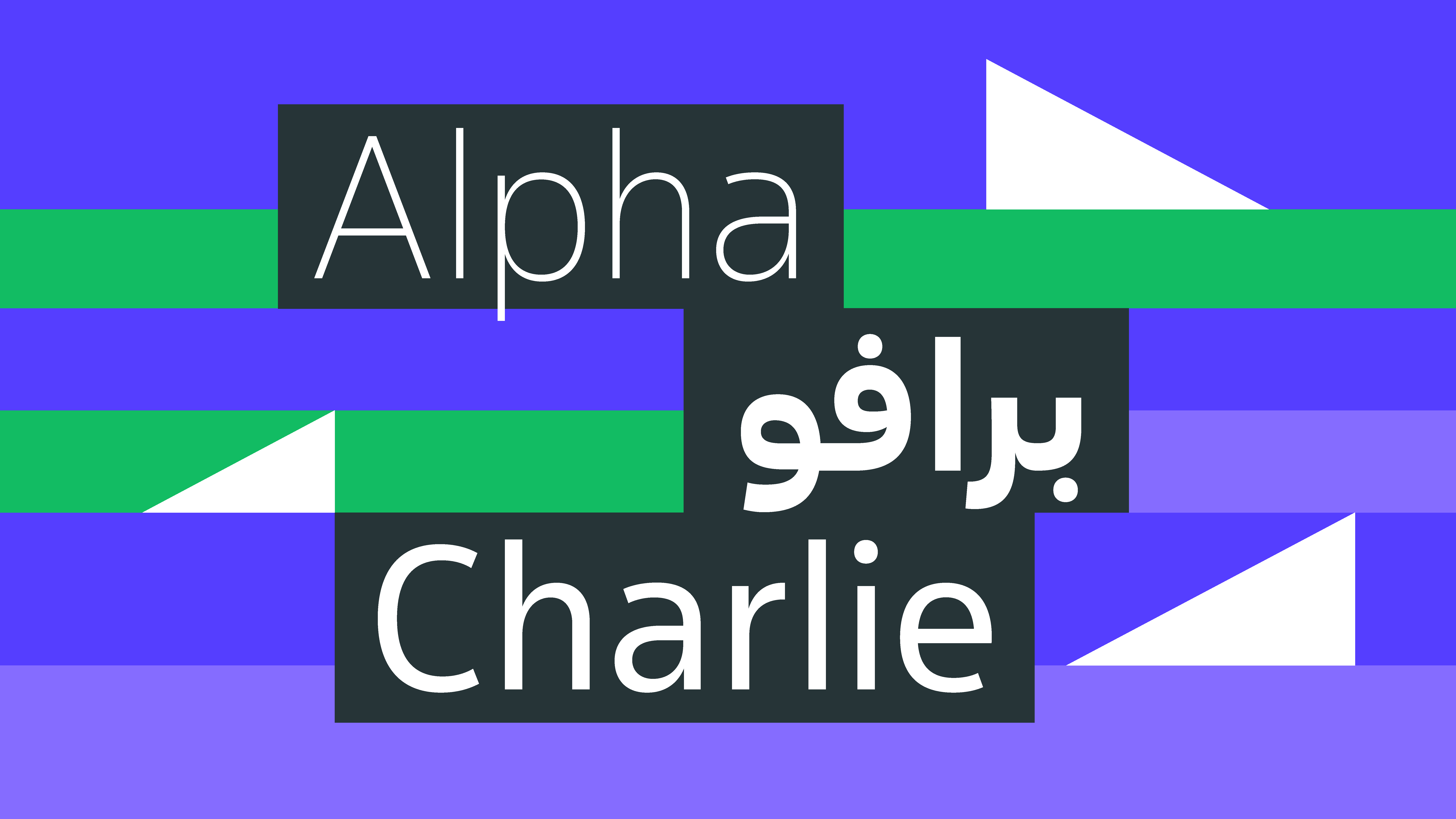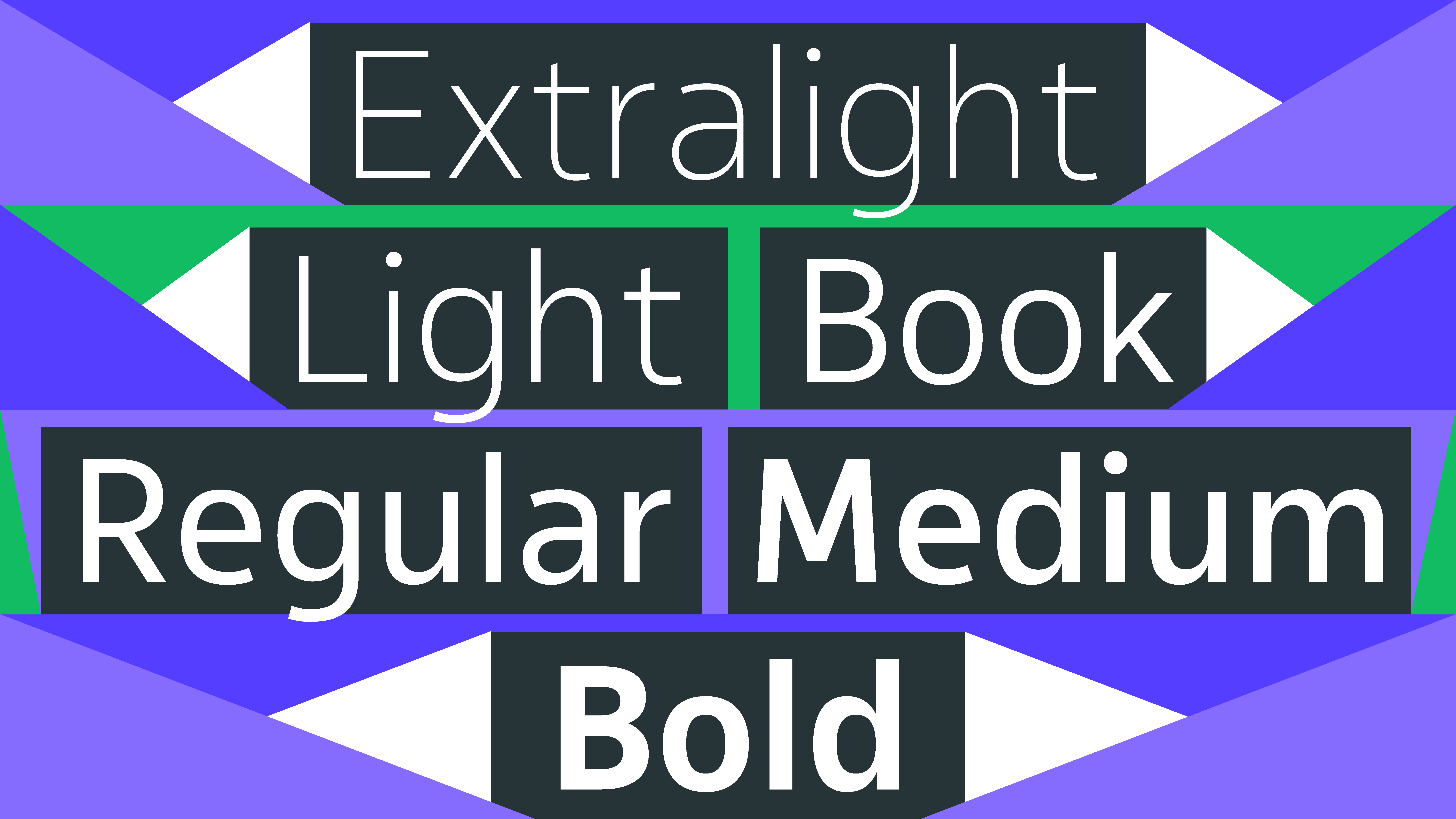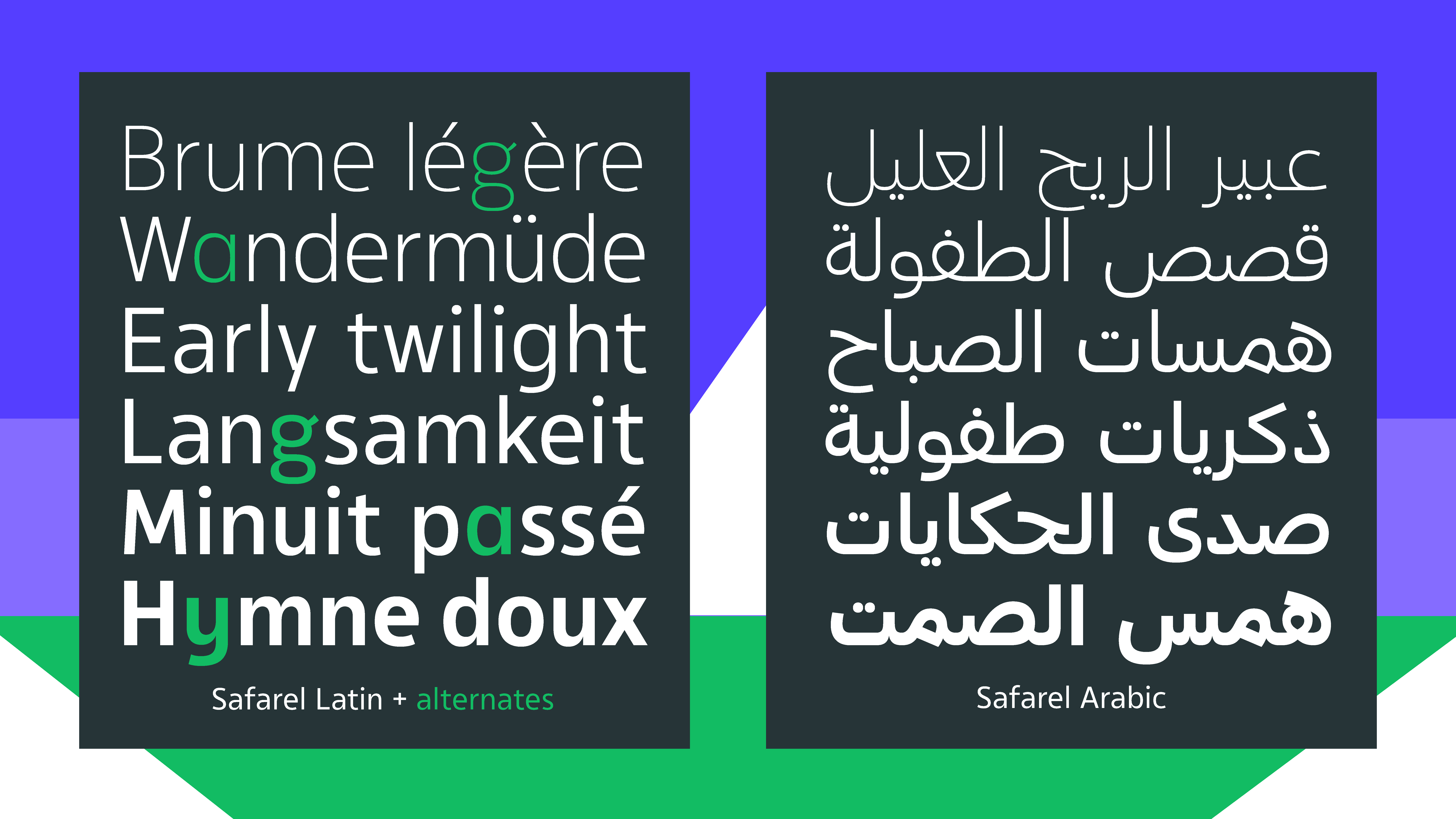
Safarel
صفاريل
في بابلفونت، لا نرسم الحروف... بل نُحرّرها من أقفاص اللغة! هل رأيتَ حرفًا يتمطّى؟ نحن رأيناه. وحرفًا آخر يرقص على السطر، ثم يختفي فجأة في هامش المعنى. بعض الحروف عندنا تنام في الكلمة، وبعضها الآخر لا يعرف النوم... كل ما يريده هو النطق، النطق، ثم النطق! وهناك حرف كان يصرخ: "أنا لست نقطتين فوق التاء، أنا تاج!" وحرف آخر رفض أن يكون في نهاية الجملة، لأنه يخاف من النقطة. في بابلفونت، الحروف تتحدث لغات لا تُعدّ. العربية، اللاتينية، التيفيناغ، الكورية... كلها تجلس على طاولة واحدة، تشرب الشاي، وتتناقش في قضايا الشكل والبياض والميزان البصري. قد تقول لي: "لكن الحرف لا يتكلم!" وأنا أقول لك: بل يتكلم، فقط عليك أن تقرأه جيّدًا. الخط ليس مجرد رسم، إنه تمثيل مسرحي صامت، يصرخ دون صوت. بعض الخطوط سمينة، وبعضها نحيفة، وبعضها مثل طير لا يعرف أين يضع قدميه. في بابلفونت، لا نبيع الخطوط، بل نروي بها القصص. الخط عندنا لا يُقصّ ولا يُضغط... هو يُهمَس، يُقطّر، يُسكب على الصفحة كالعطر. حرف العين قال يومًا لحرف الاّم: "أنا أعقد منك!" فردّ الاّم: "لكنني أطول!" وفي النهاية اتفقا على أن الجمال في الخط ليس في الطول أو العقد، بل في الانسجام. نحن في بابلفونت لا نبحث عن الحروف، نحن نخلقها. ثم نتركها تسير على الورق كما تشاء... فهل تجرؤ على قراءتها؟
ⵙⴰⴼⴰⵔⴻⵍ
ⵜⴰⵡⵉⵏⴰ ⵉⵏⴰⵡⴰⵙⵙ ⵏ ⵉⵖⵔⵉ ⴷ ⴰⵎⵓⵍ ⵏ ⴰⵙⴳⴰⵣ. ⵉⵖⵍⴰ ⴷ ⴰⴽⴰⵣ, ⴰⵙⵉⵏ ⴷ ⵢⵉⵏ, ⵉⵎⵓⵙⵙⴰ ⵓⵏⴰⴷ ⴰⵎⴰⵣⵉⵖ ⴰⴷ ⴰⵍⴰⵎⴰⵏ. ⴰⵡⵉⴷ ⴰⴳⵔⴰⵡ ⵓⵙⵏⵉⴹ, ⵏⵉⴷⵓⴷ ⴰⵣⴰⵍ, ⵉⵍⴰ ⵓⴱⴰⵔⴷ ⴰⴽⵔⴰⵡ ⵙⴰ ⵉⵣⴰⵡⴰⵏ. ⴰⵎⴰⵍⵍⵓ ⵏⵉⵖ, ⴰⴷⵔⴰⵏ ⵉⴷ ⴰⵏⵉⵍⵍⵉ ⴷ ⴰⴷⵓⴷⵉⵏ. ⵓⵙⵍⴰⵡ ⴰⵏⵎⴰⴹ ⵏ ⵜⴰⵡⵉⵏⴰ ⴷ ⴰⵙⴳⴰⵣ ⵙ ⵜⴰⵙⴳⴰⵡⵜ ⵓⵏⴰⴷ ⵜⴰⵎⴰⵣⵉⵖⵜ. ⴰⵡⵉⵙⵉ ⵙⴰ ⴷⴰⵔ ⵉⴷ ⵓⵏⵖⵓⵍ ⴷ ⴰⵔⴰⵡ. ⵙⵉⵏ ⴰⴷ ⴰⵙⵙⵓⵔⵉⵏ ⵙ ⵜⴰⵣⴰⵍⵜ. ⴰⵏⴰⵎⴻⵔⴰ ⵏⴰⵎⴰⵢⵏ ⵉⵙⴷⴰ ⵓⴷⴻⵔⵏ ⵏⵓⵎⴻⵔⵍⴰⴷ, ⵓⵏⴰⴷ ⵉⵎⴰⵙⴷⴰ ⴷ ⴰⵍⴰⵎⴰⵏ. ⵉⵏⴰⵡⴰⵙⵙ ⵜⴰⵎⵓⵍⴰⵡⵉⵜ, ⵙⵙⴰⴳⴰⵔⵉⵜ, ⵙⴰⵡⴰⵙⴰⵏⵜ. ⴰⴳⴳⴰⴷ ⵏ ⵉⵙⵙⴰ ⴰⴷ ⴰⴳⴳⴰⴷ ⵏ ⵓⴳⵔⴰⵡ. ⵜⴰⵡⵉⵏⴰ ⴷ ⴰⴼⴰⵏⴰⵙ ⴷ ⵜⴰⵎⵓⵣⵣⴰ ⵉⴷ ⴰⵙⵉⵏ. ⵜⴰⵏⴰⴹⴰ ⴷ ⵜⴰⵎⴻⴳⴷⴰ ⵉⴷ ⵜⵉⵎⵓⴽⴽⴰⵍⵉⵢⵉⵏ. ⴰⵍⴰⵎⴰⵏ ⴷ ⴰⵙⴳⴰⵣ ⵙⴰ ⵉⴱⴰⵏ ⵙ ⵓⴱⴻⵙⴰⵡⵉⵏ. ⵓⵙⵍⴰⵡ ⴰⴳⴷⴰⵔⴻⵏ, ⵓⵙⵍⴰⵡ ⴰⵍⴻⴷⵉ ⴷ ⵜⴰⵏⵏⴰⵙⵙⵓⵏⵜ.ⵜⴰⵡⵉⵏⴰ ⵉⵏⴰⵡⴰⵙⵙ ⵏ ⵉⵖⵔⵉ ⴷ ⴰⵎⵓⵍ ⵏ ⴰⵙⴳⴰⵣ. ⵉⵖⵍⴰ ⴷ ⴰⴽⴰⵣ, ⴰⵙⵉⵏ ⴷ ⵢⵉⵏ, ⵉⵎⵓⵙⵙⴰ ⵓⵏⴰⴷ ⴰⵎⴰⵣⵉⵖ ⴰⴷ ⴰⵍⴰⵎⴰⵏ. ⴰⵡⵉⴷ ⴰⴳⵔⴰⵡ ⵓⵙⵏⵉⴹ, ⵏⵉⴷⵓⴷ ⴰⵣⴰⵍ, ⵉⵍⴰ ⵓⴱⴰⵔⴷ ⴰⴽⵔⴰⵡ ⵙⴰ ⵉⵣⴰⵡⴰⵏ. ⴰⵎⴰⵍⵍⵓ ⵏⵉⵖ, ⴰⴷⵔⴰⵏ ⵉⴷ ⴰⵏⵉⵍⵍⵉ ⴷ ⴰⴷⵓⴷⵉⵏ. ⵓⵙⵍⴰⵡ ⴰⵏⵎⴰⴹ ⵏ ⵜⴰⵡⵉⵏⴰ ⴷ ⴰⵙⴳⴰⵣ ⵙ ⵜⴰⵙⴳⴰⵡⵜ ⵓⵏⴰⴷ ⵜⴰⵎⴰⵣⵉⵖⵜ. ⴰⵡⵉⵙⵉ ⵙⴰ ⴷⴰⵔ ⵉⴷ ⵓⵏⵖⵓⵍ ⴷ ⴰⵔⴰⵡ. ⵙⵉⵏ ⴰⴷ ⴰⵙⵙⵓⵔⵉⵏ ⵙ ⵜⴰⵣⴰⵍⵜ. ⴰⵏⴰⵎⴻⵔⴰ ⵏⴰⵎⴰⵢⵏ ⵉⵙⴷⴰ ⵓⴷⴻⵔⵏ ⵏⵓⵎⴻⵔⵍⴰⴷ, ⵓⵏⴰⴷ ⵉⵎⴰⵙⴷⴰ ⴷ ⴰⵍⴰⵎⴰⵏ. ⵉⵏⴰⵡⴰⵙⵙ ⵜⴰⵎⵓⵍⴰⵡⵉⵜ, ⵙⵙⴰⴳⴰⵔⵉⵜ, ⵙⴰⵡⴰⵙⴰⵏⵜ. ⴰⴳⴳⴰⴷ ⵏ ⵉⵙⵙⴰ ⴰⴷ ⴰⴳⴳⴰⴷ ⵏ ⵓⴳⵔⴰⵡ. ⵜⴰⵡⵉⵏⴰ ⴷ ⴰⴼⴰⵏⴰⵙ ⴷ ⵜⴰⵎⵓⵣⵣⴰ ⵉⴷ ⴰⵙⵉⵏ. ⵜⴰⵏⴰⴹⴰ ⴷ ⵜⴰⵎⴻⴳⴷⴰ ⵉⴷ ⵜⵉⵎⵓⴽⴽⴰⵍⵉⵢⵉⵏ. ⴰⵍⴰⵎⴰⵏ ⴷ ⴰⵙⴳⴰⵣ ⵙⴰ ⵉⴱⴰⵏ ⵙ ⵓⴱⴻⵙⴰⵡⵉⵏ. ⵓⵙⵍⴰⵡ ⴰⴳⴷⴰⵔⴻⵏ, ⵓⵙⵍⴰⵡ ⴰⵍⴻⴷⵉ ⴷ ⵜⴰⵏⵏⴰⵙⵙⵓⵏⵜ.
Safarel — Clarity first. Anywhere. A clean and versatile sans-serif, Safarel was designed for optimal readability, both on screen and in print. With 6 weights, it supports Latin and Arabic, making it a powerful choice for signage, public information and wayfinding systems. Its geometric balance and open counters allow it to guide the eye without distraction. From airports to apps, Safarel speaks with confident simplicity.